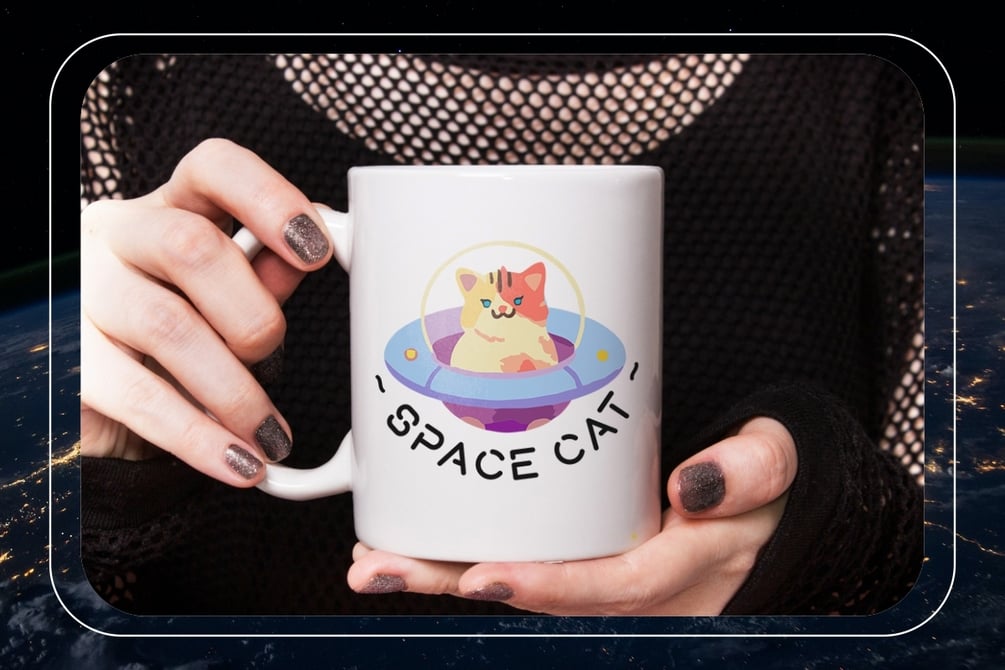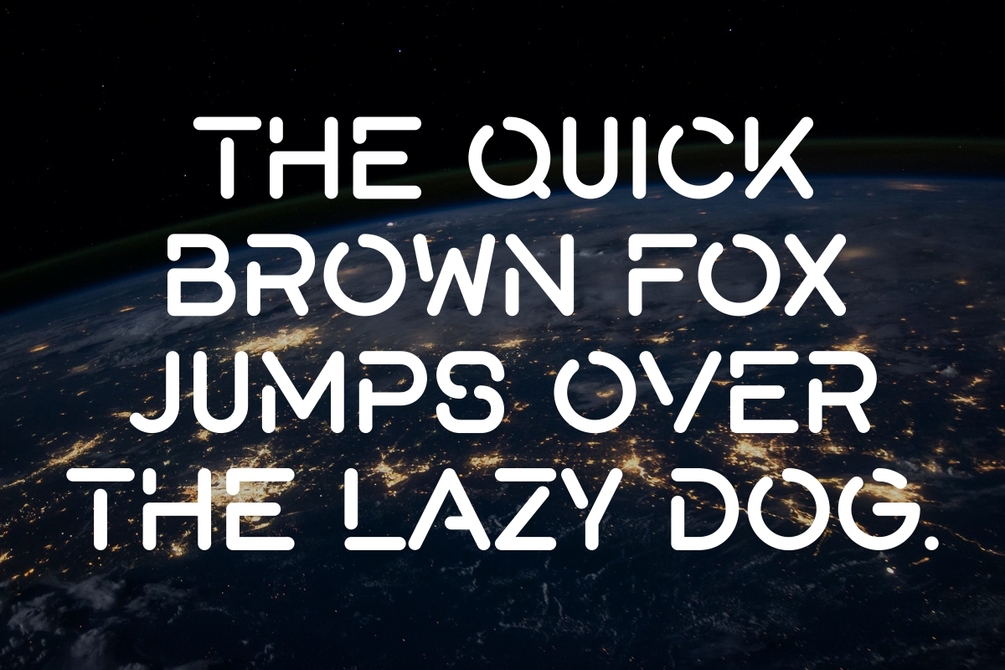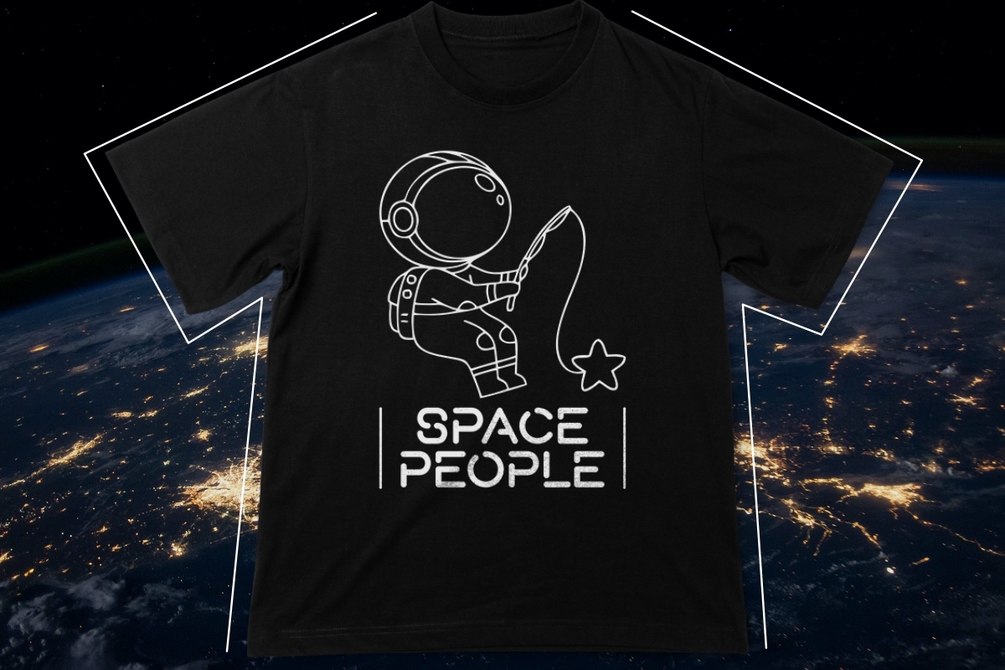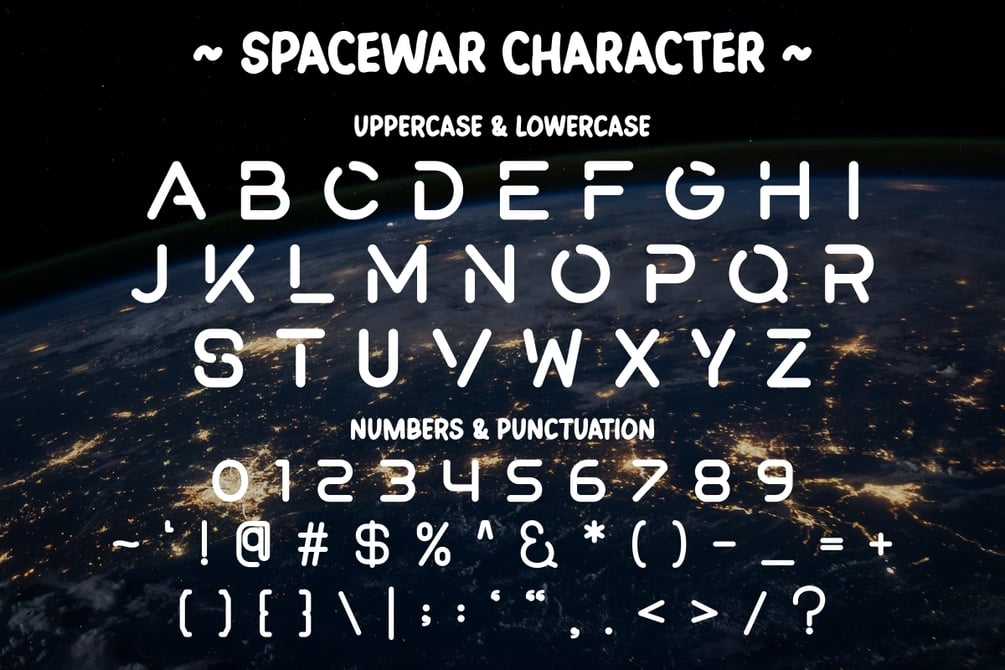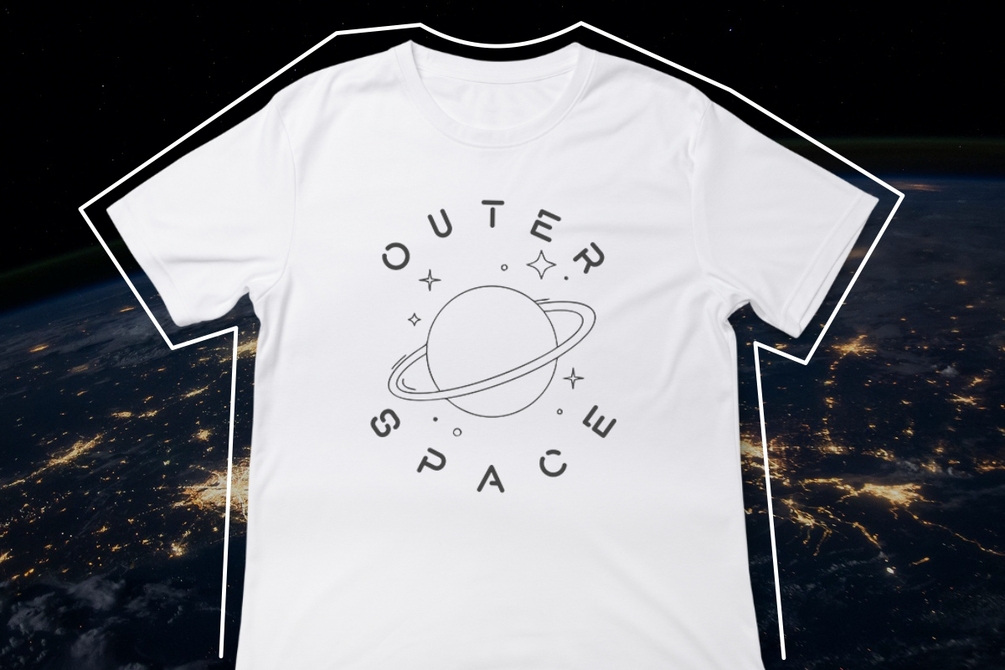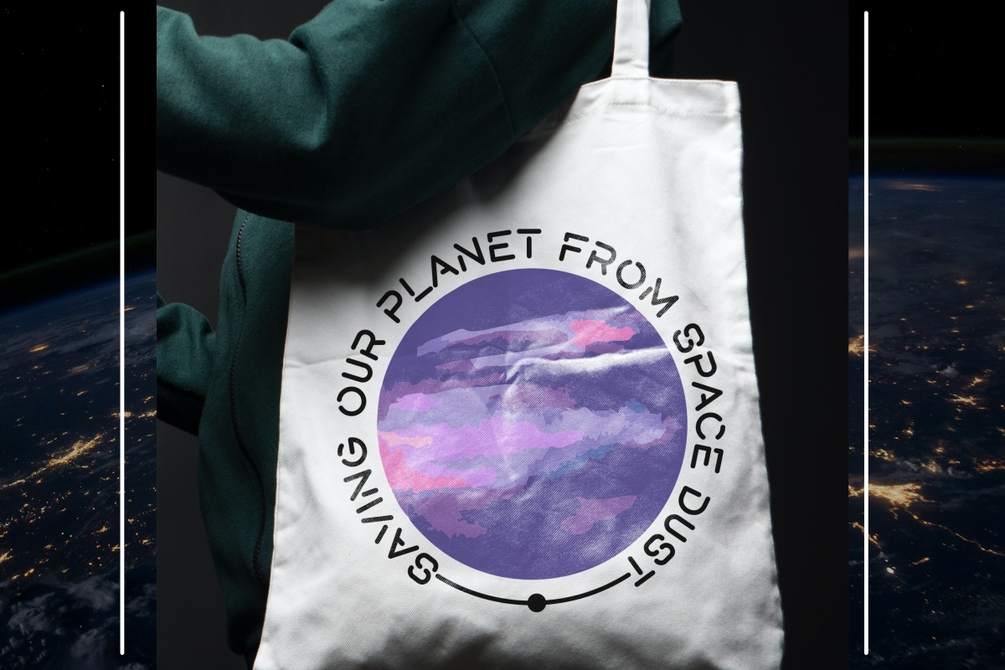
Spacewar - Futuristic Display Font
SpaceWar is a futuristic display font that seamlessly blends the wonders of space exploration with a modern touch. This typeface is designed to elevate your designs into the realms of the future, making it ideal for space-themed branding, sci-fi posters, and futuristic projects. SpaceWar boasts sleek, contemporary letterforms that bring a sense of interstellar sophistication to your creations.